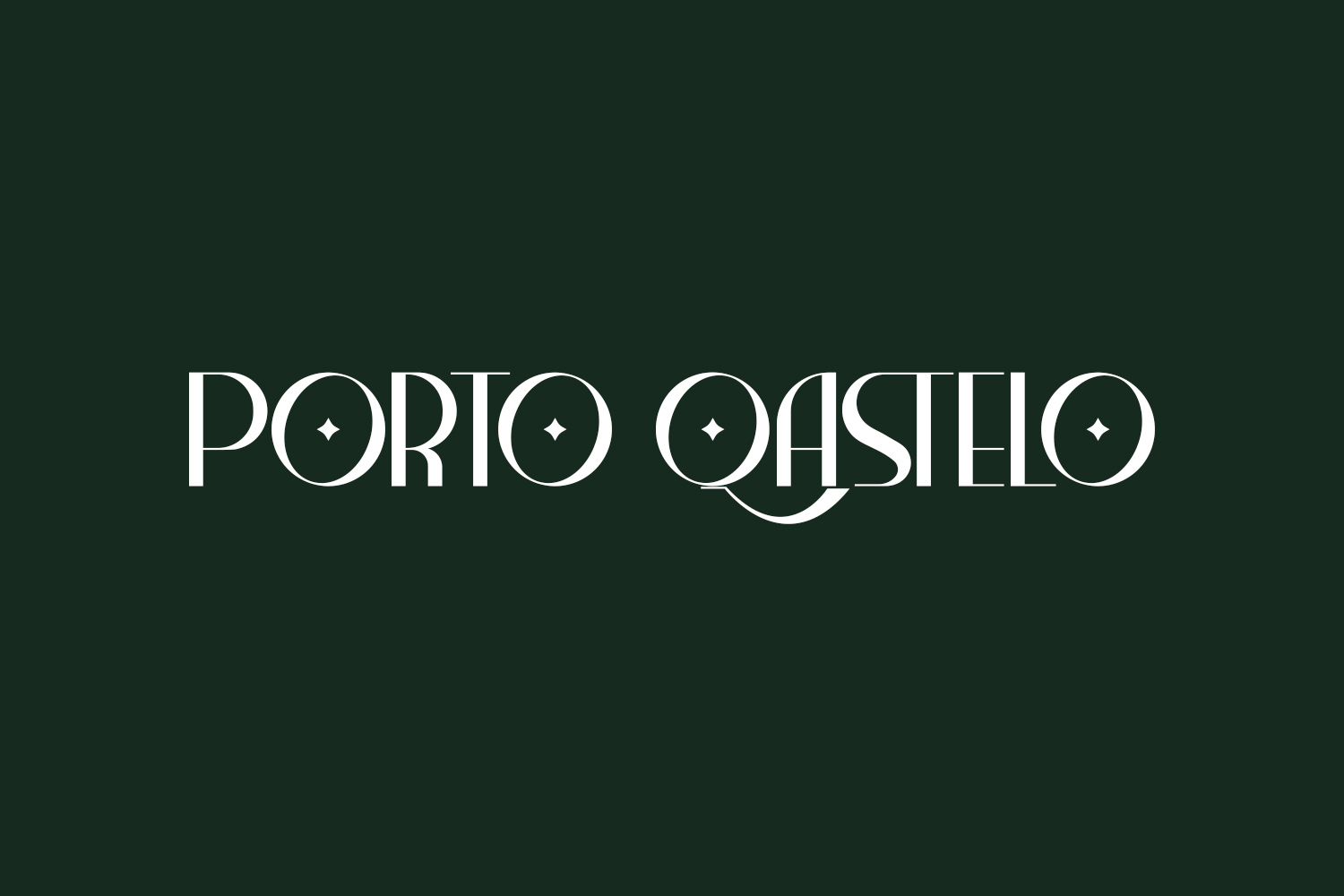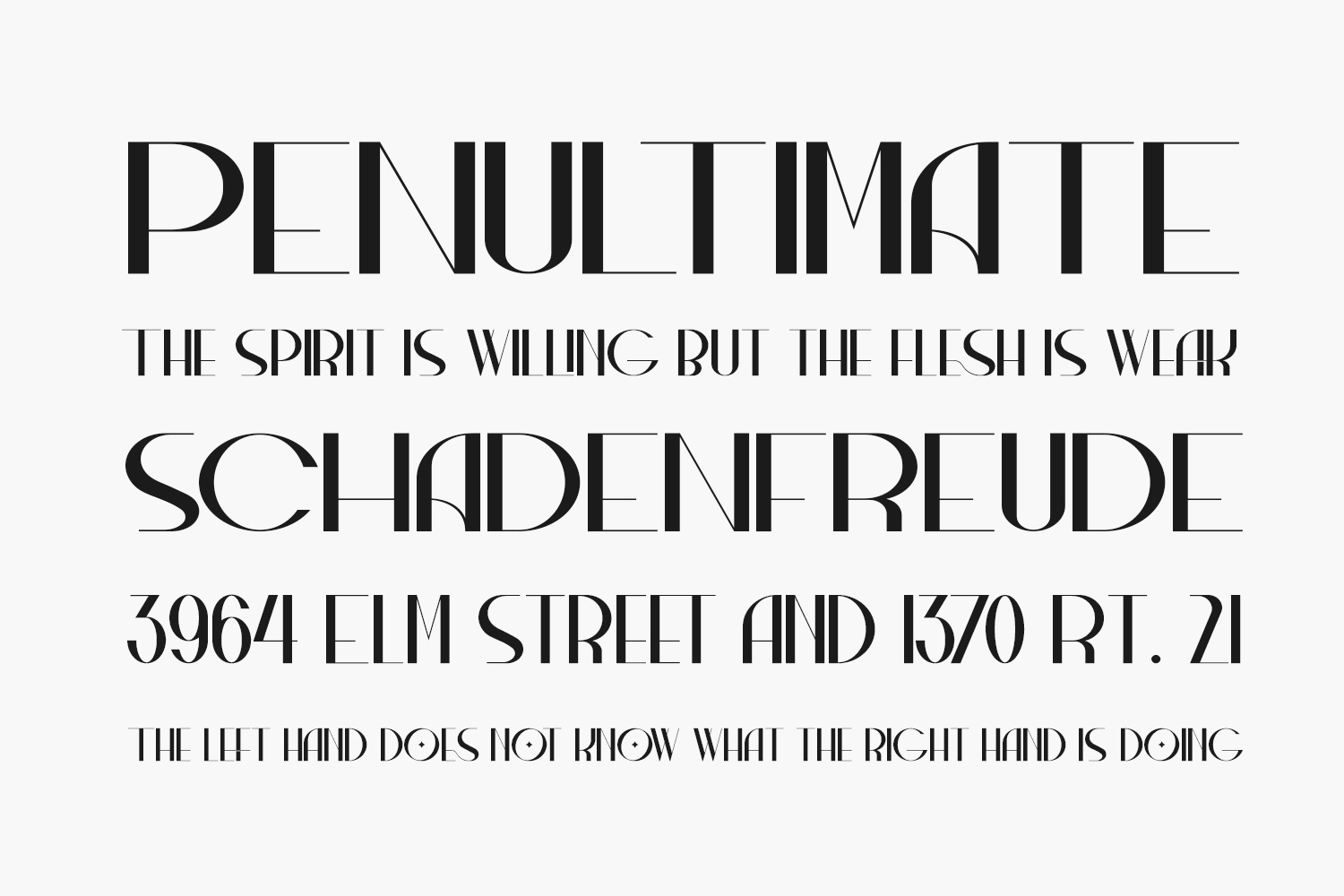
Porto Qastelo Free Font Family is a cool and modern display font. Fall in love with its incredibly versatile style and use it to create spectacular designs. Porto Qastelo Free Font Family was designed by Storytype Studio and is free for personal use only. Please purchase the full version for commercial use.